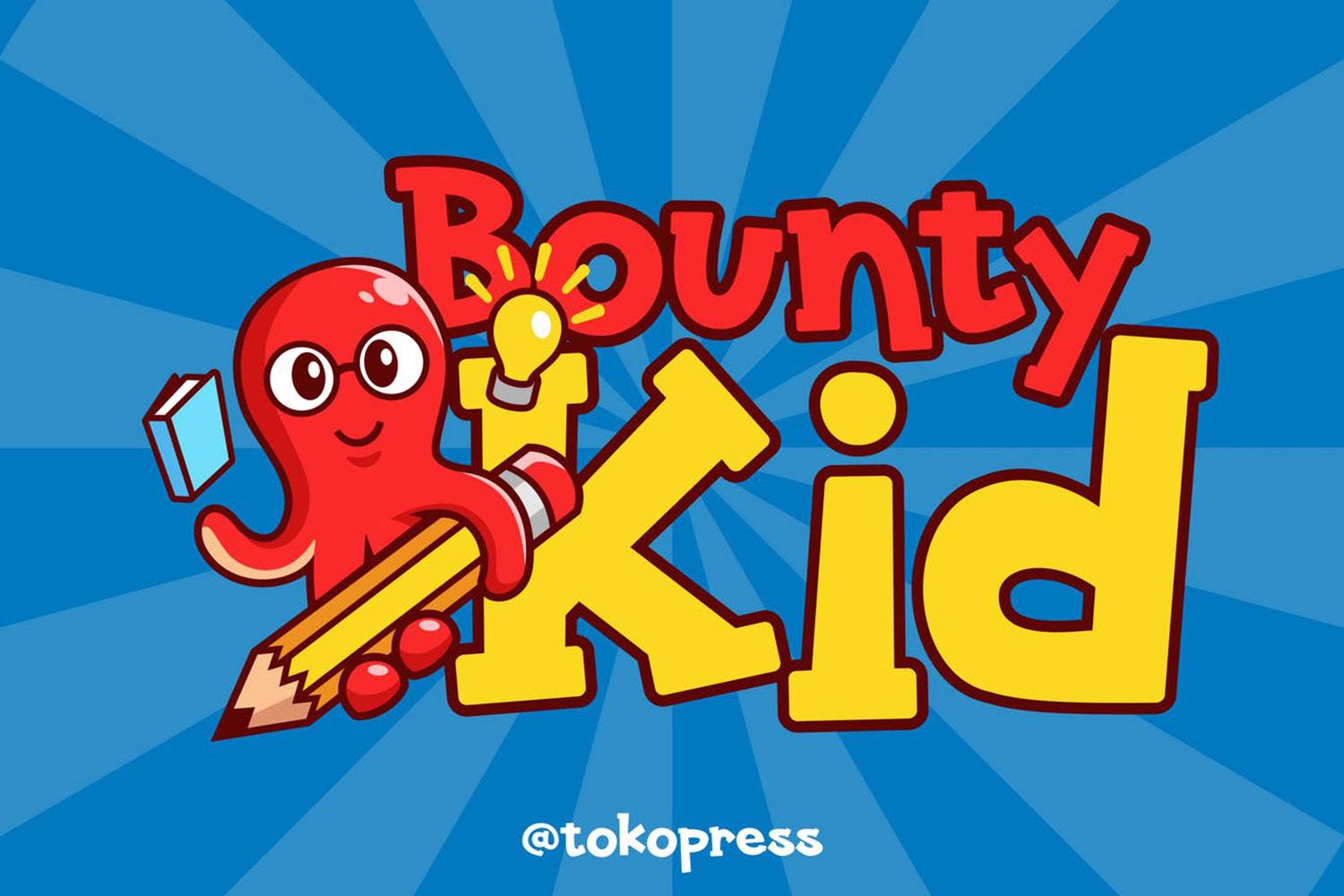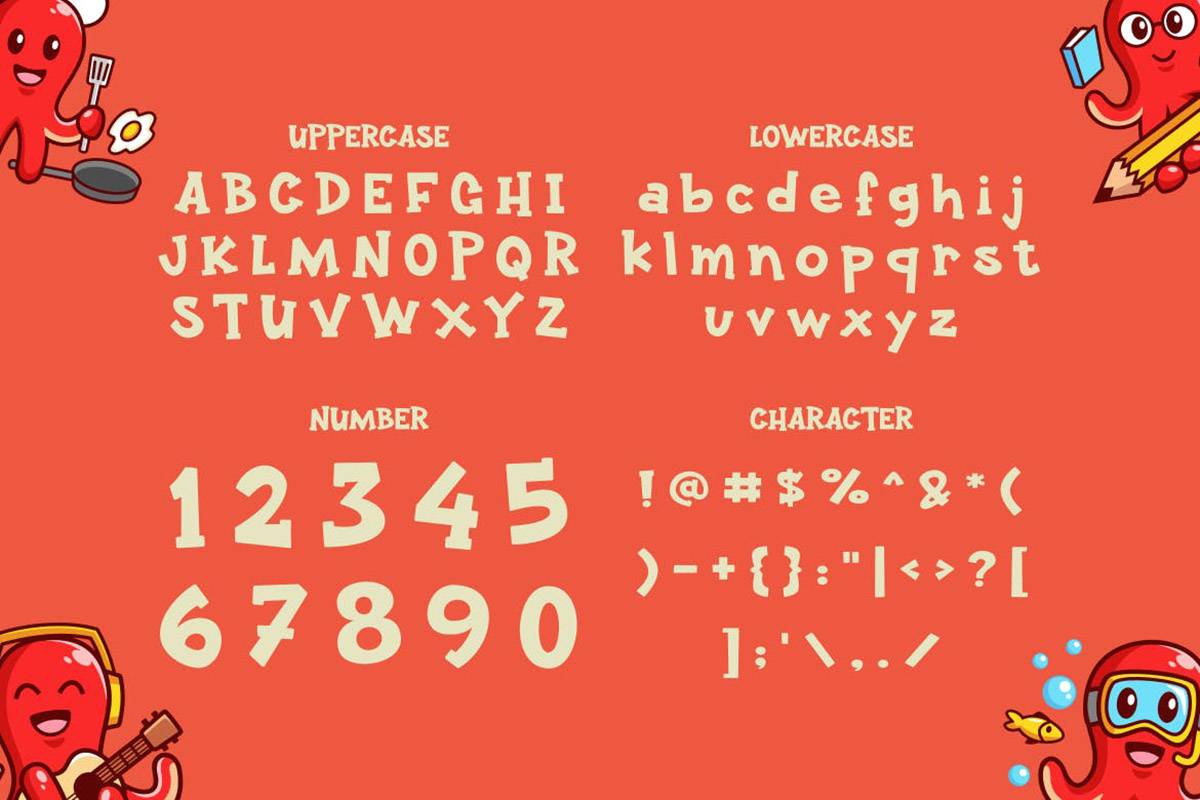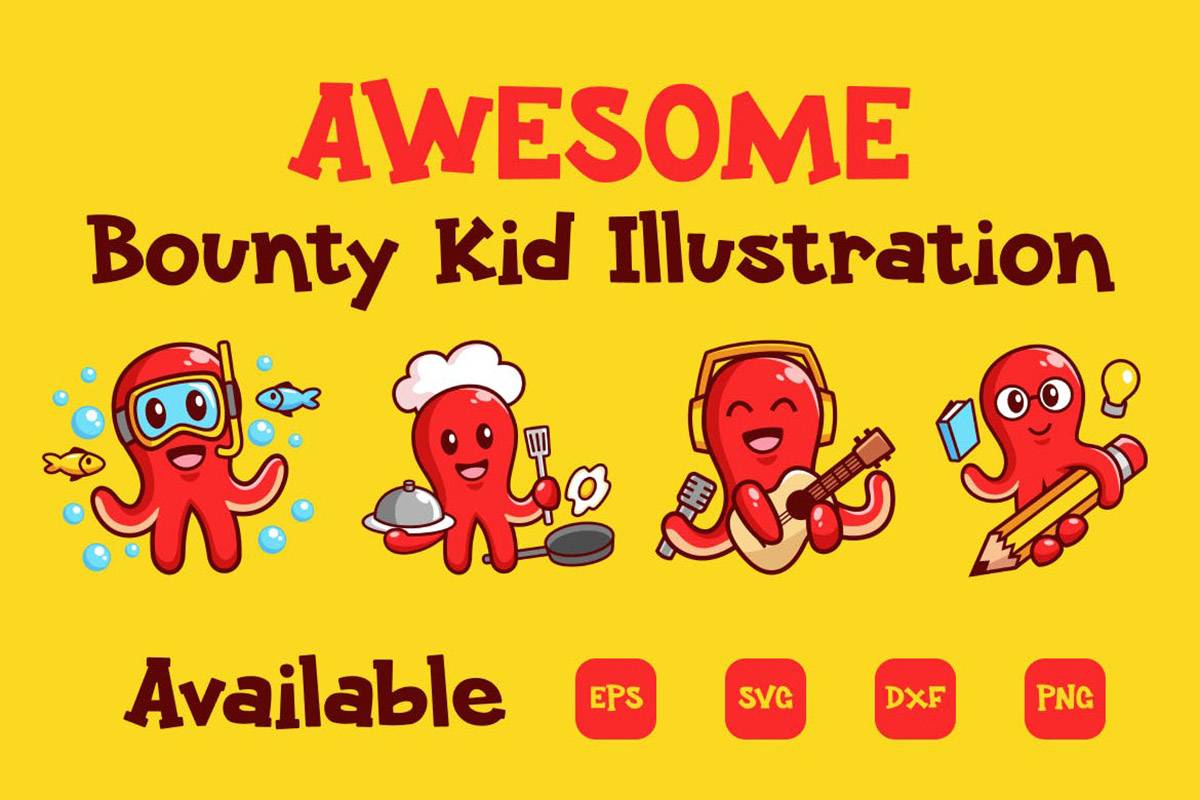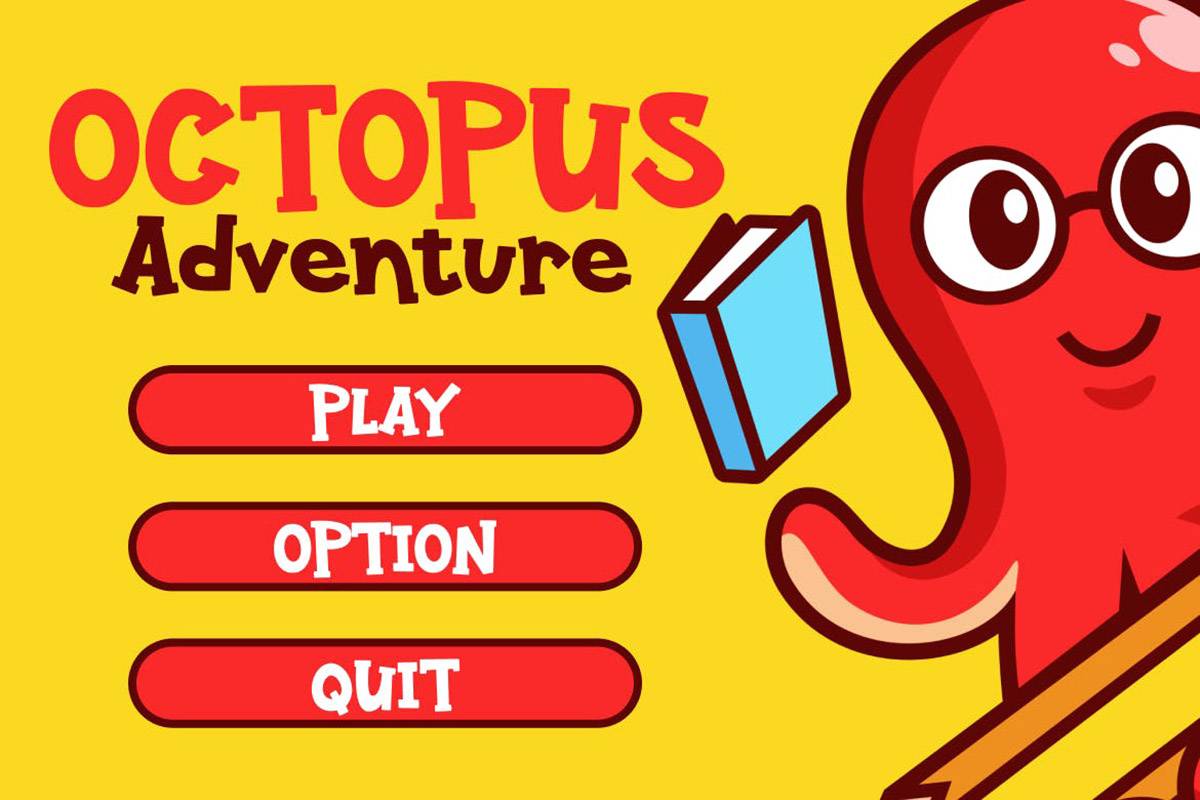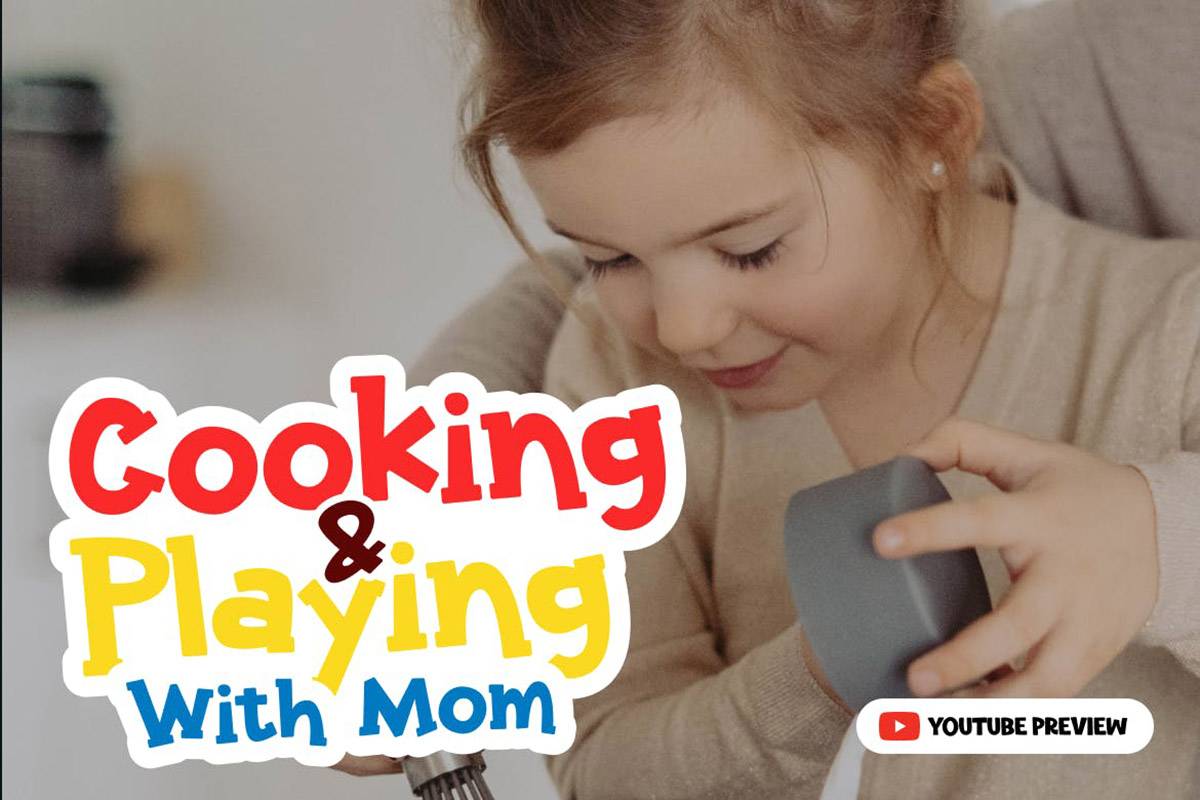
Bounty Kid is a playful, bold sans serif font with a fun and slightly irregular character design that gives it a whimsical, hand-drawn feel. Its chunky weight and lively letterforms make it perfect for children’s books, casual branding, or any project seeking an energetic and friendly personality. This font works best in headlines, logos, and designs that want to convey creativity and youthful charm.
Bounty Kid Font
About Bounty Kid Font